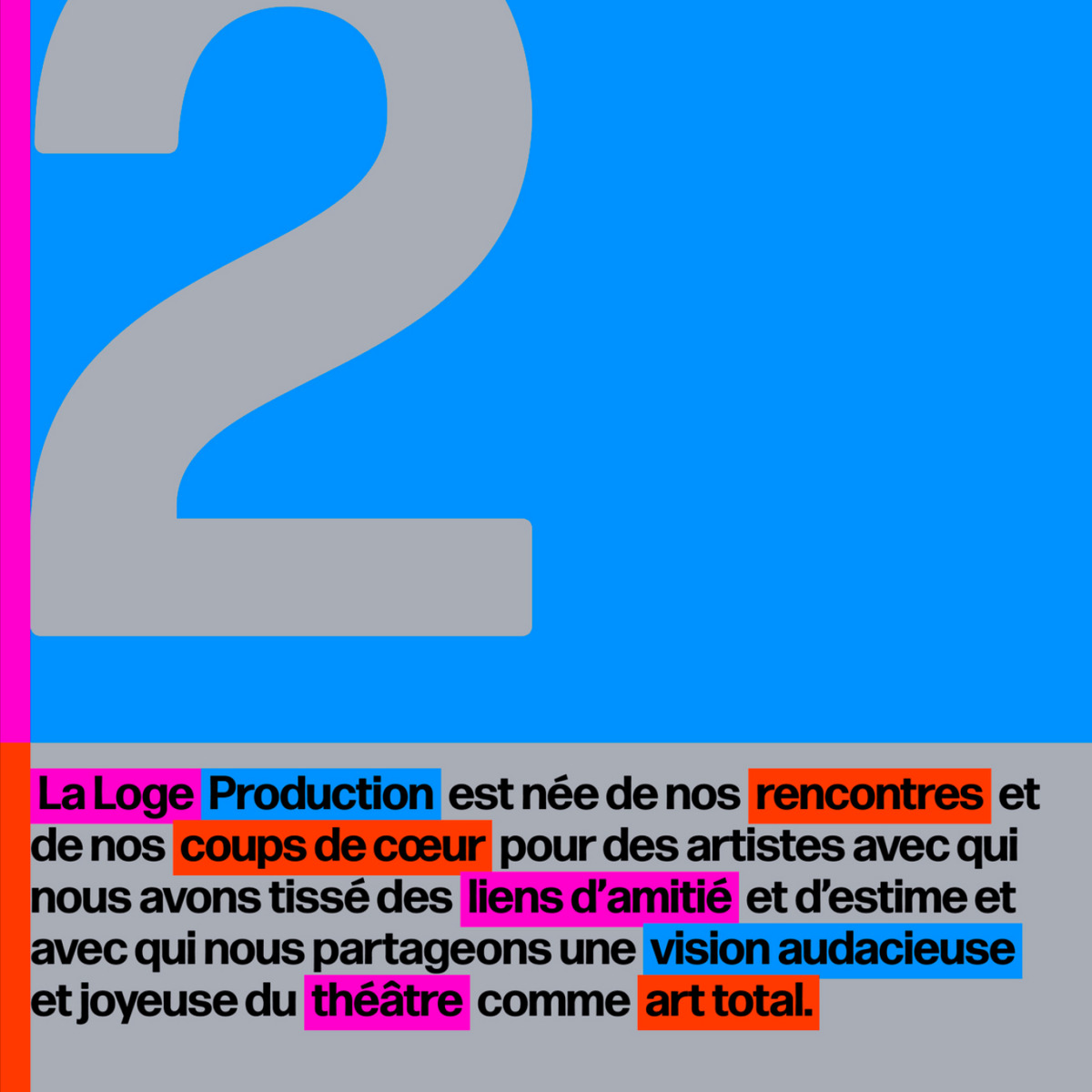
La Loge is a French project committed to supporting theatre actors, dancers, and musicians. The project was designed by Fakepaper Studio, which opted for Forma DJR by David Jonathan Ross to handle its typography.
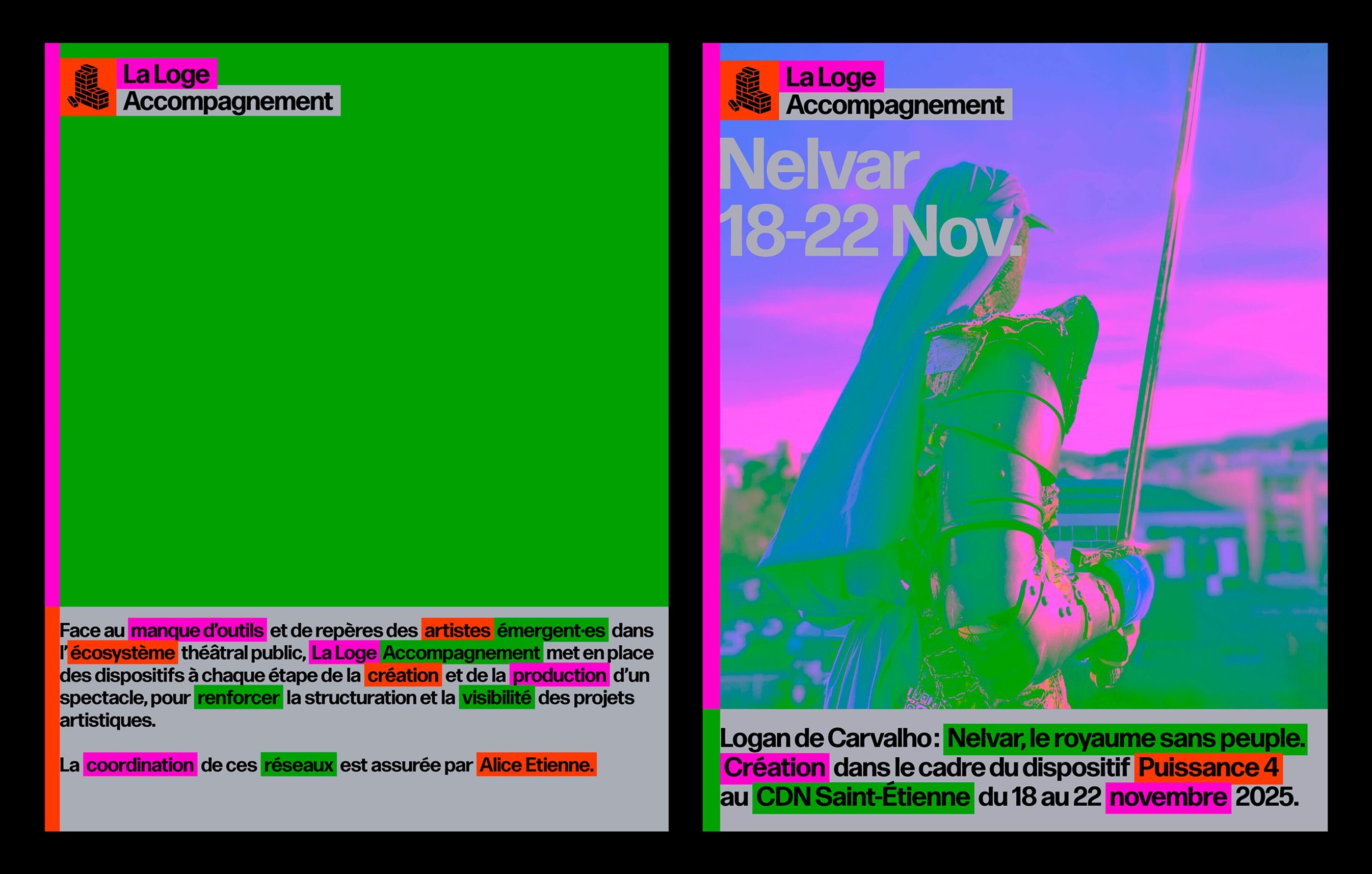
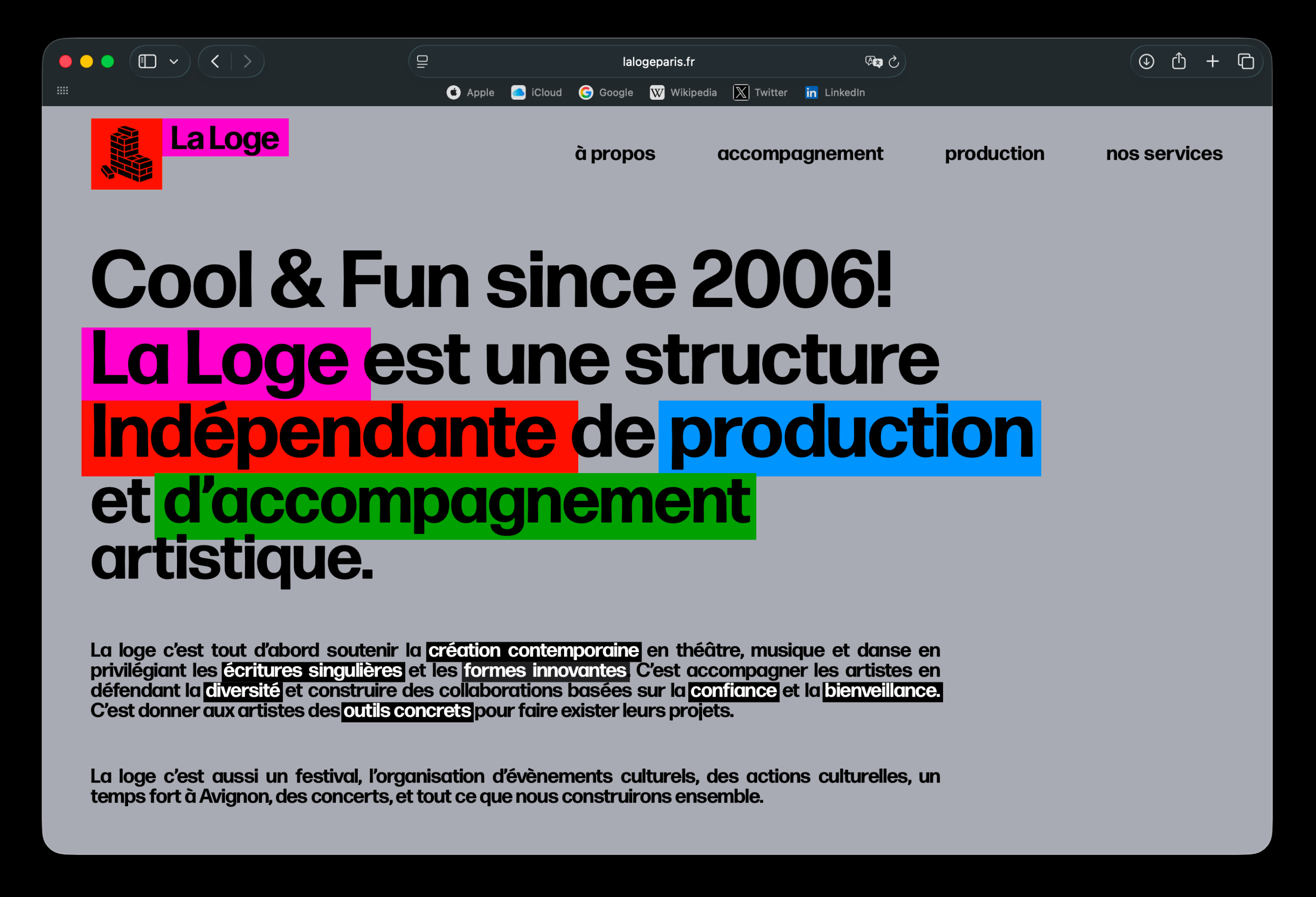
Forma DJR is a revival of the typeface of the same name by Nebiolo foundry. Apart from the original, the typeface borrows from the grotesque type of the 1960s and 1970s, characterized by tight letter spacing and rounded angles. To ensure those subtleties are not lost at very large and very small sizes, Forma comes in five optical sizes, from Micro (less than 8 pt) to Banner (72 pt).